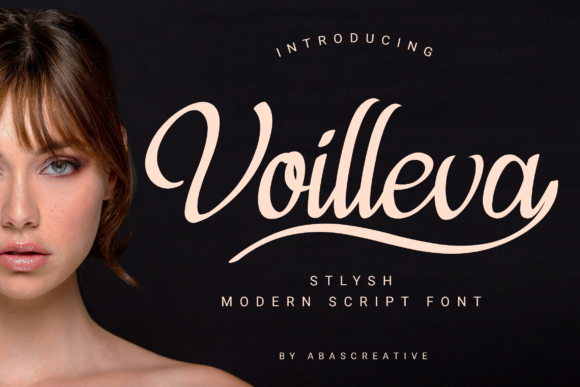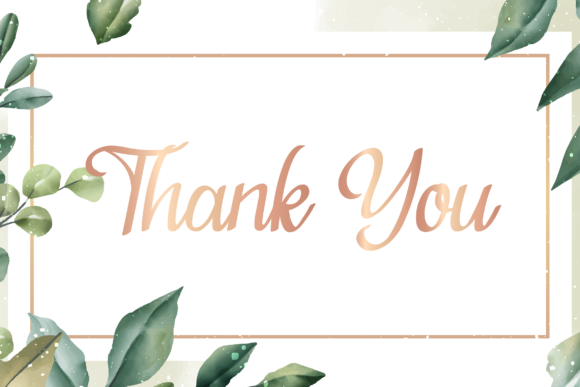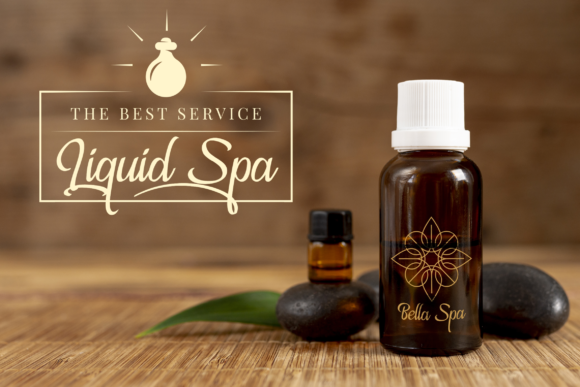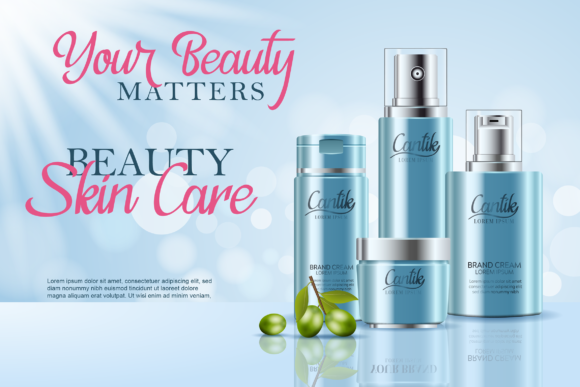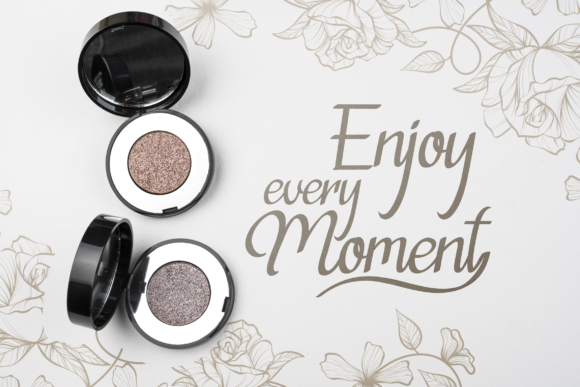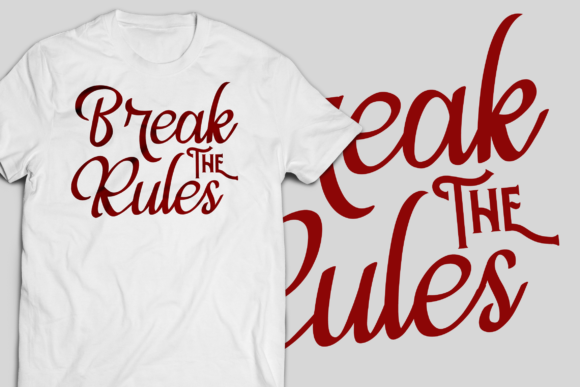
Voilleva Font
About Voilleva Font
Voilleva is an elegant and modern calligraphy font. It is great for branding logos, t-shirt designs, posters, business cards, typography, newspapers and any other artistic project! Voilleva will turn any creative idea into a true piece of art!